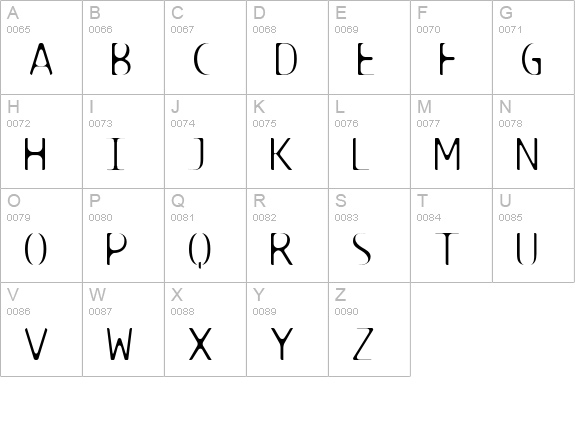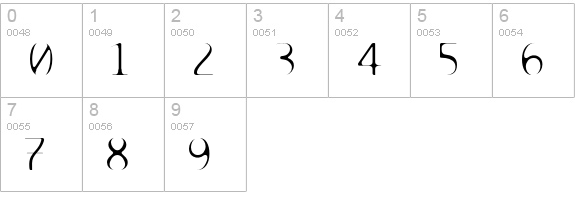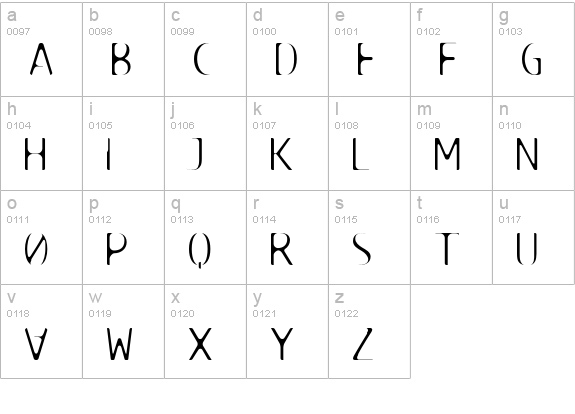
TECHNOIRE-Suture Font Details
TECHNOIRE-Suture font is a stunning display font that combines futuristic aesthetics with a touch of elegance. Its sleek and stylish design makes it perfect for a wide range of modern projects, from technology-related designs to fashion branding and more. The unique characteristic of TECHNOIRE-Suture font lies in its intricate details and clean lines, creating a sense of precision and sophistication. It is designed to stand out and captivate the attention of viewers, adding a contemporary edge to any visual composition. With its bold and striking appearance, TECHNOIRE-Suture font effortlessly conveys a sense of strength and innovation. Its versatile nature allows it to be used for both headlines and body text, ensuring that your message remains clear and impactful. One of the best features of TECHNOIRE-Suture font is that it is freely available to download at FontsMarket.com. This means that you can easily access this impressive font and incorporate it into your designs without any limitations. Whether you are a professional designer or simply a creative enthusiast, this font is a valuable addition to your collection. In conclusion, TECHNOIRE-Suture font is a powerful and visually captivating font that adds a modern touch to any design project. Its sleek and sophisticated design, combined with its availability as a free download, makes it a must-have for anyone looking to create eye-catching and contemporary designs.